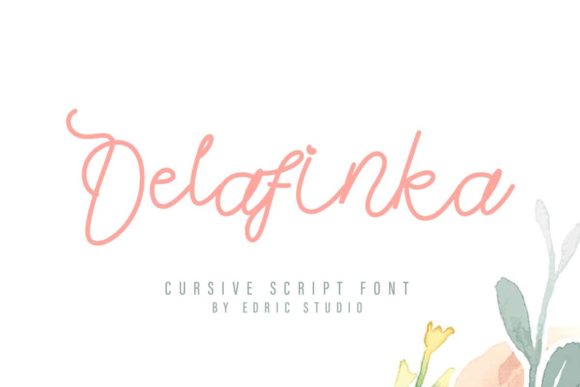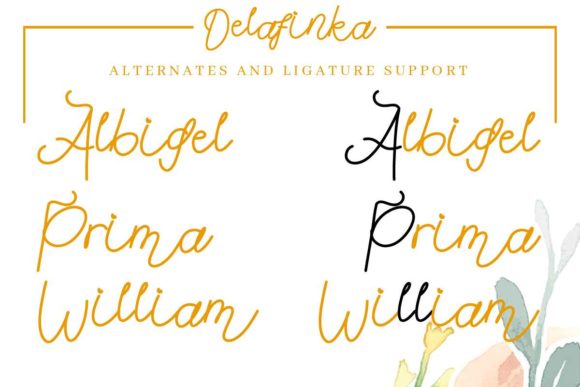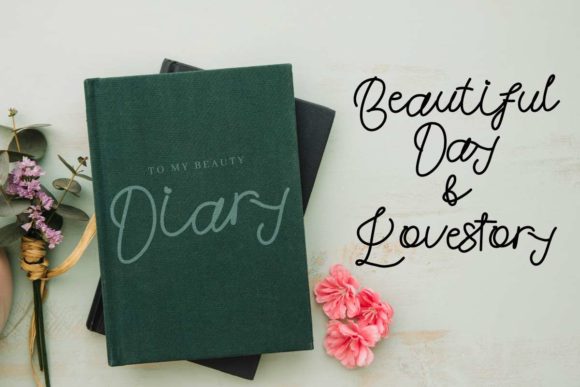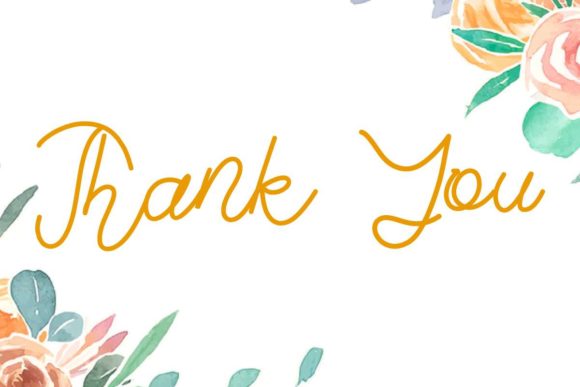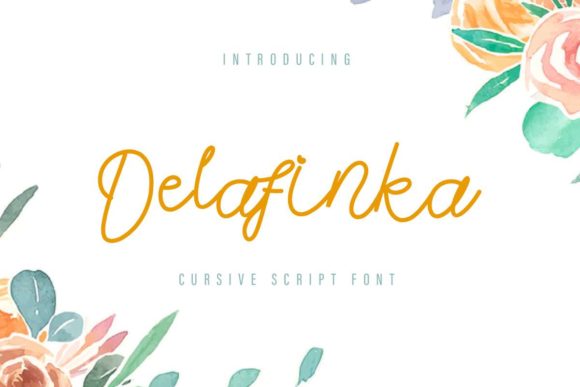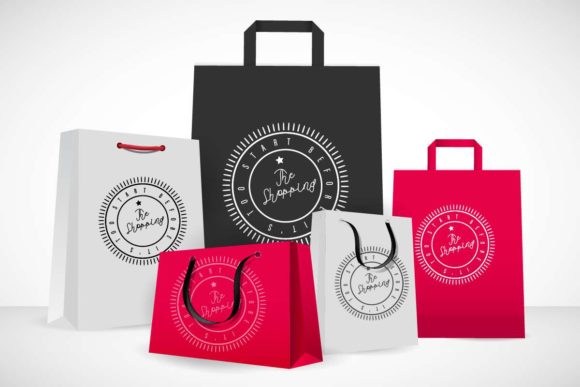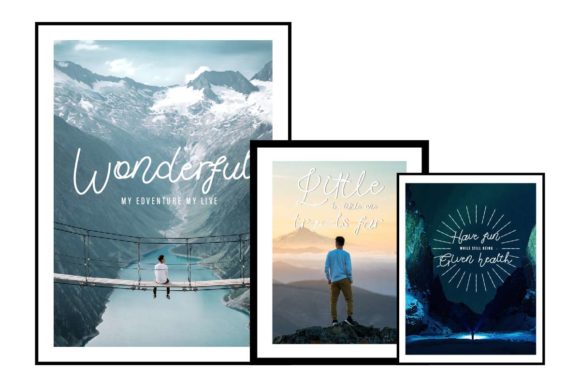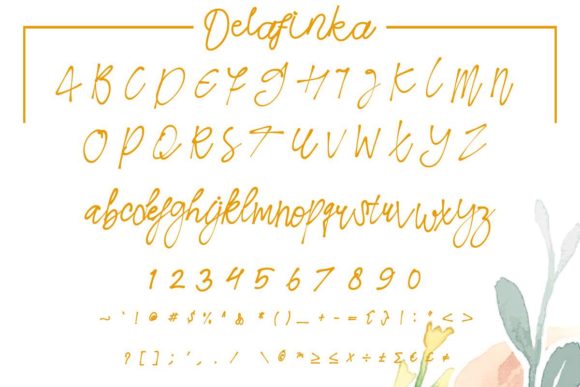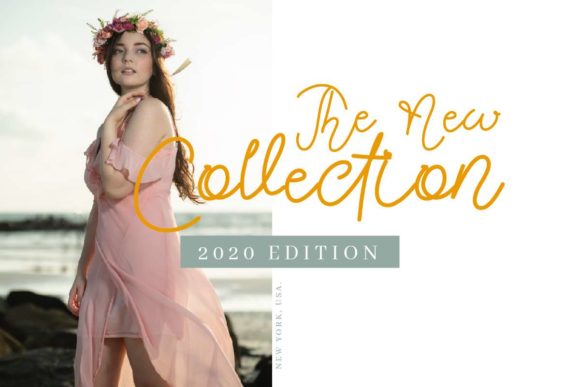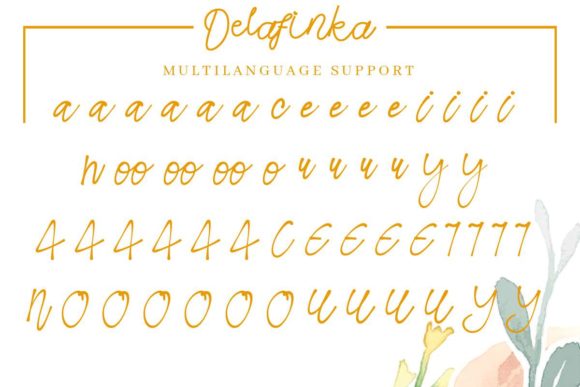
Delafinka Font
About Delafinka Font
Delafinka is a cute and modern handwritten font. Clean and a little bit quirky, this font is the perfect fit for all of your logos, branding, social media, and crafty DIY projects.